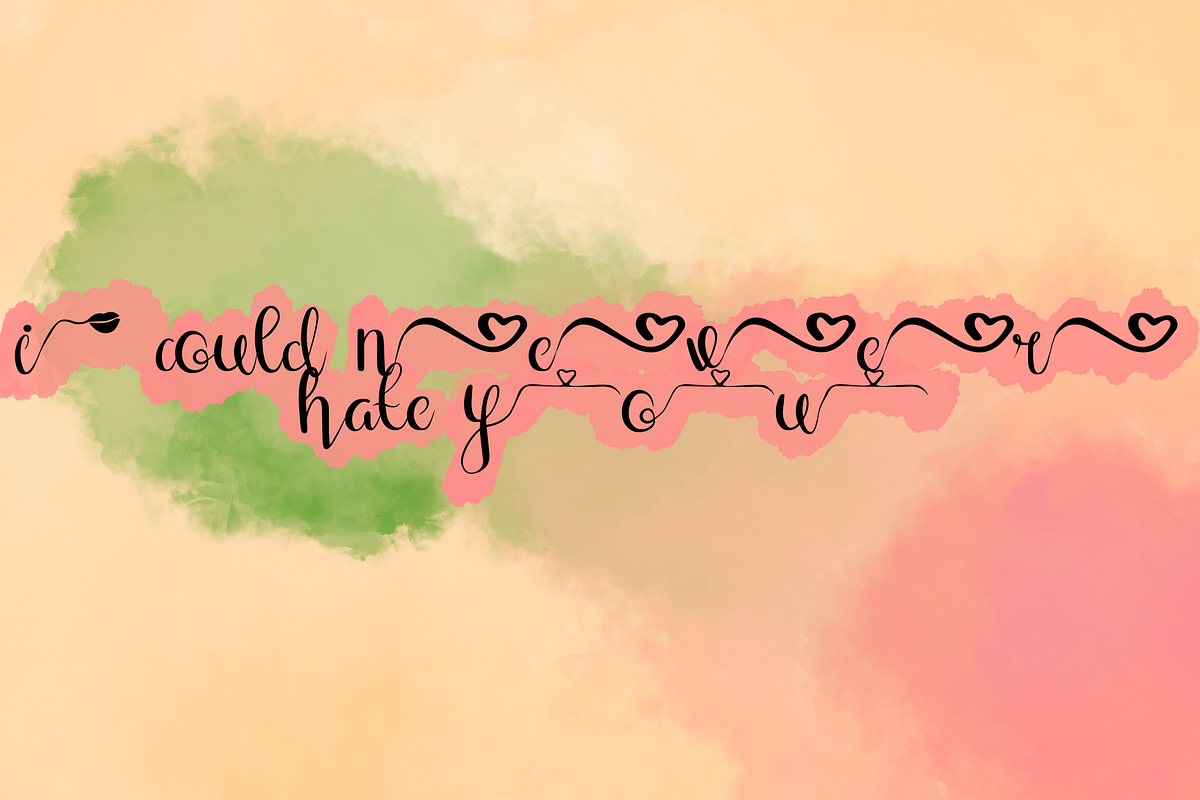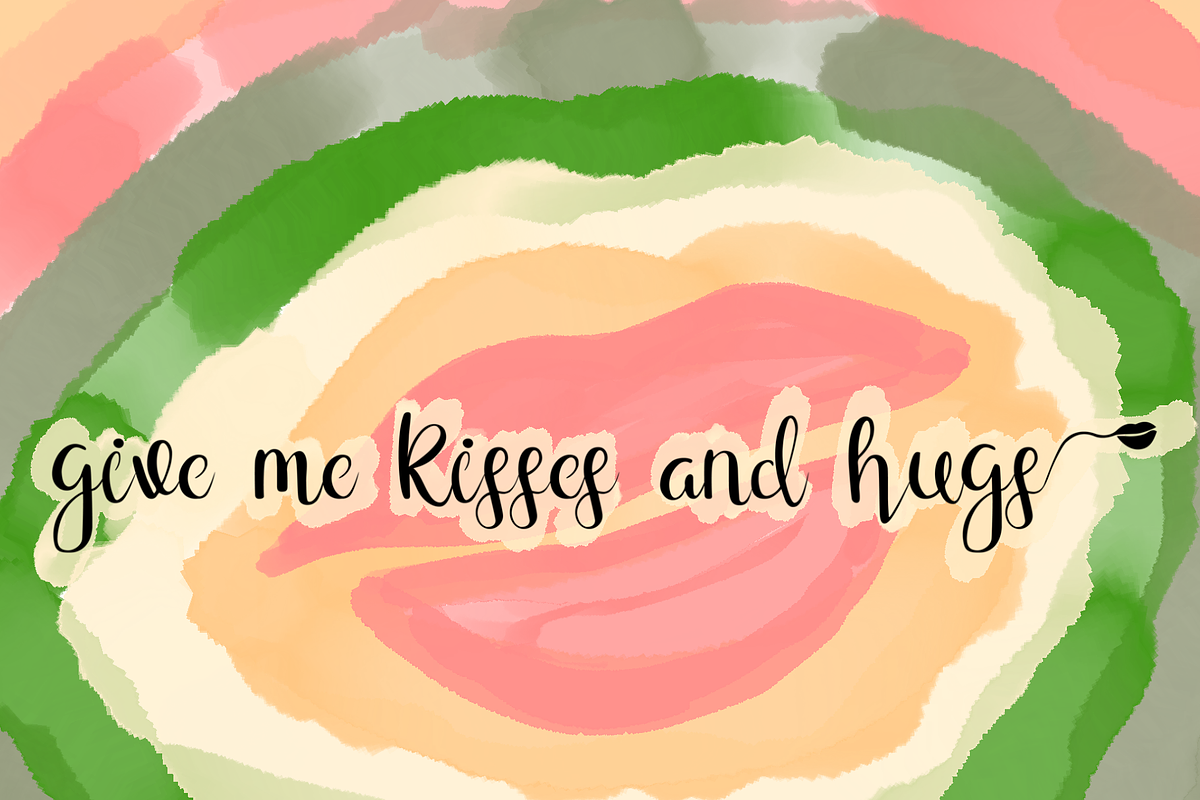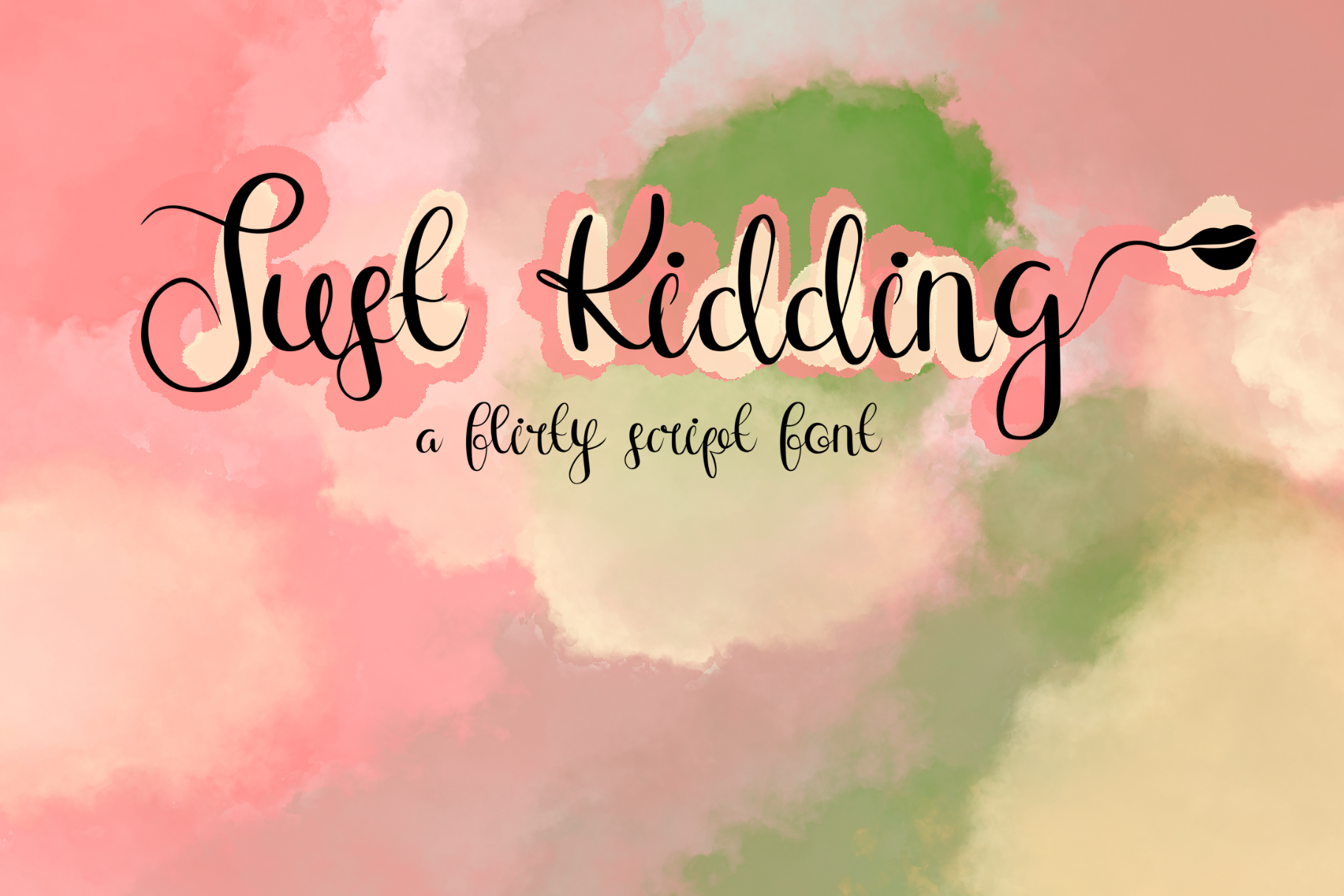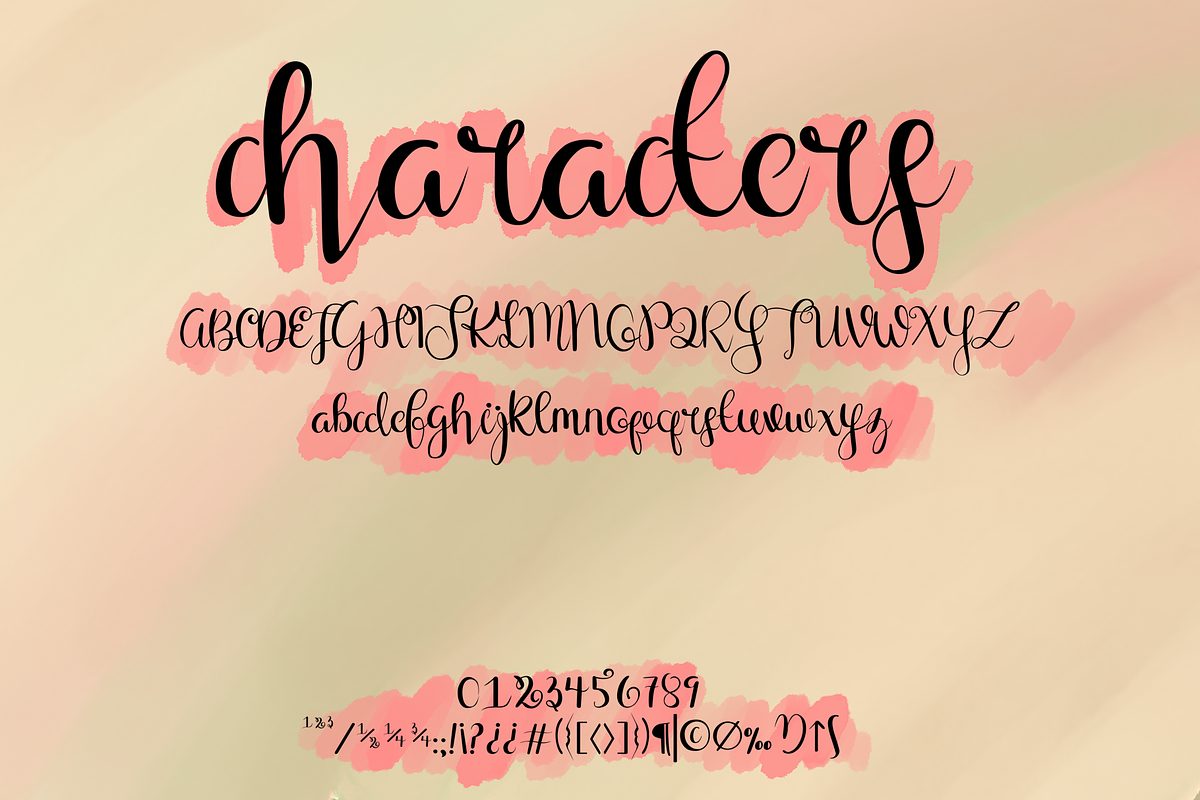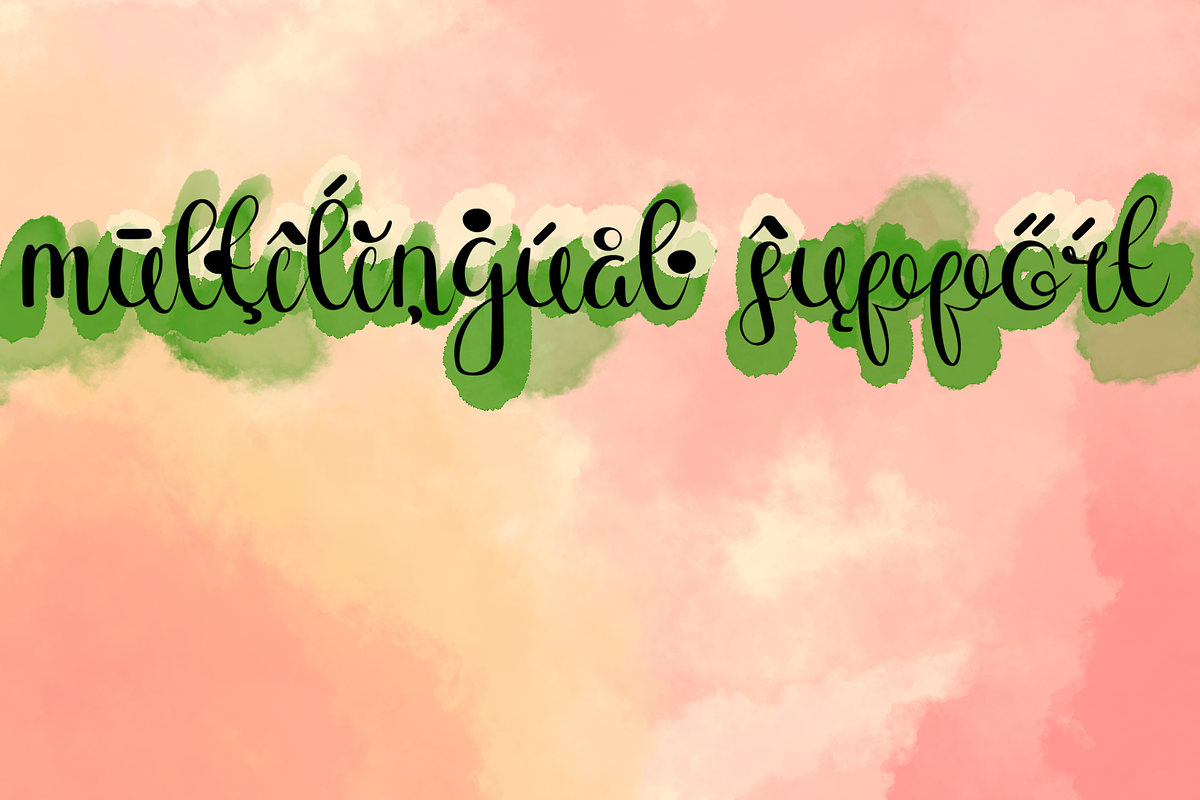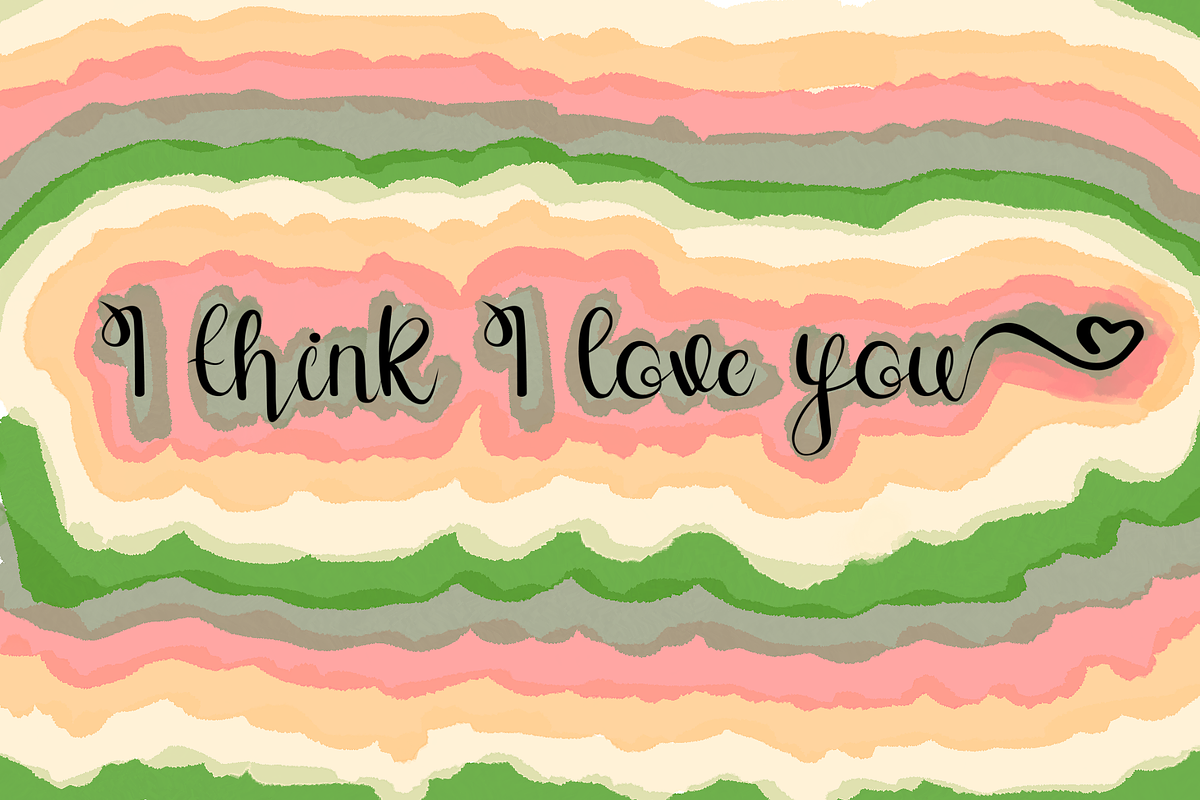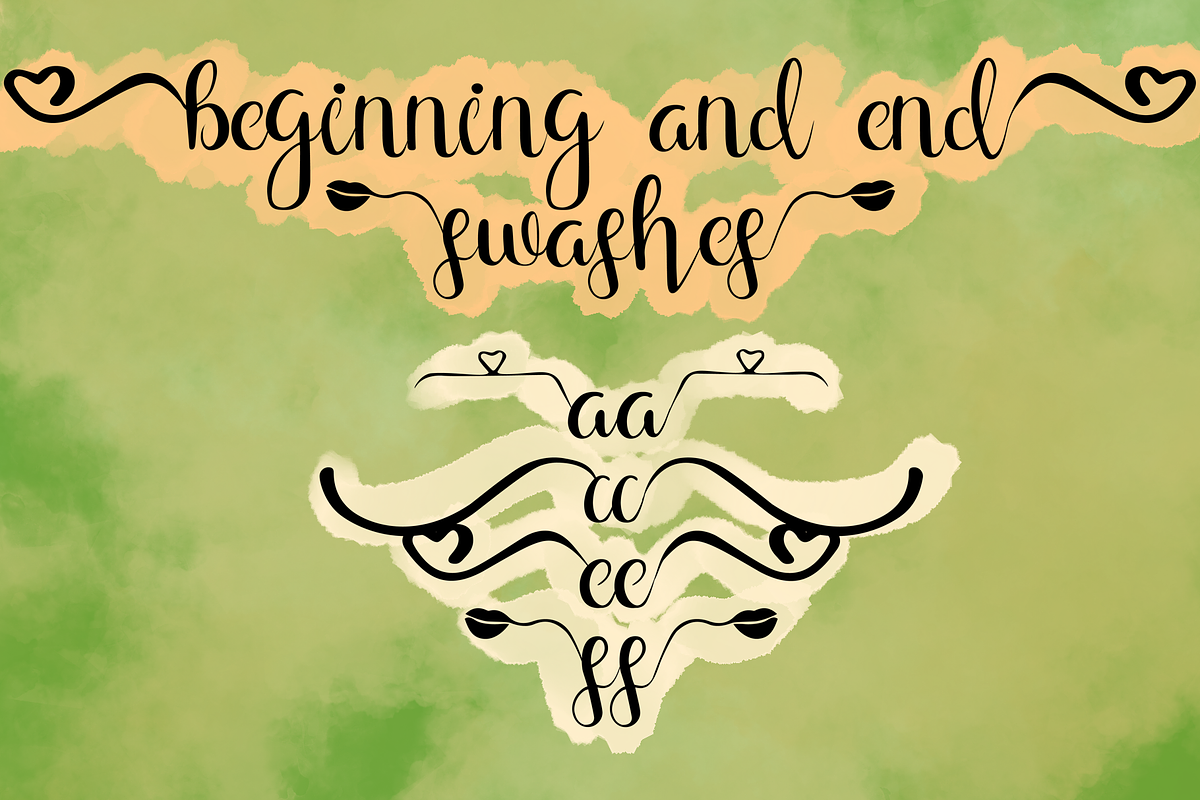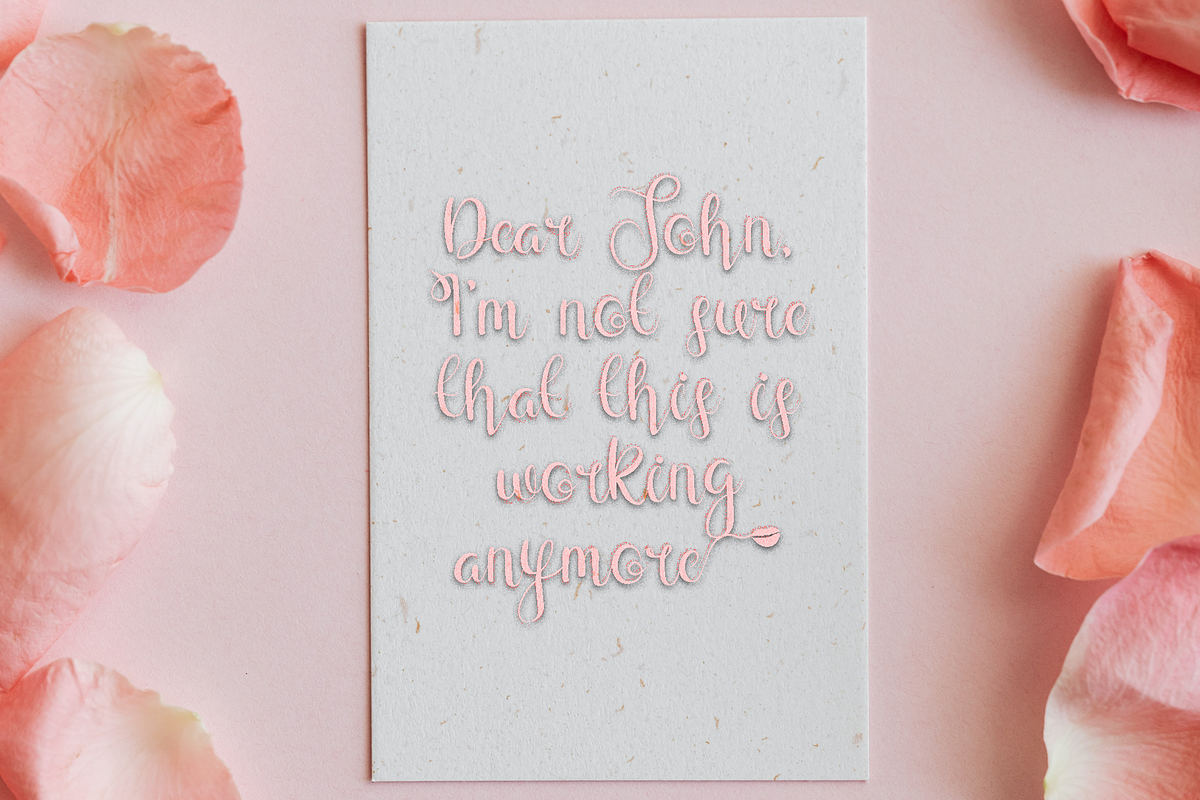
Just Kidding Script Font
Just Kidding is a flirty yet elegant script that can be used in any context. It's great for weddings, holidays, or even something funky like the graphics on display.
This font comes in uppercase, lowercase, punctuations, numerals, symbols, web symbols, and multilingual support. Great for any event or "romantic" project.
It comes with tons of alternates. There are four styles of beginning and end swashes for each lowercase letter of the alphabet. There are classic swashes, heart swashes, and kiss swashes. They make the perfect accent to any text!
With 635 glyphs, it has multilingual support for most western languages!